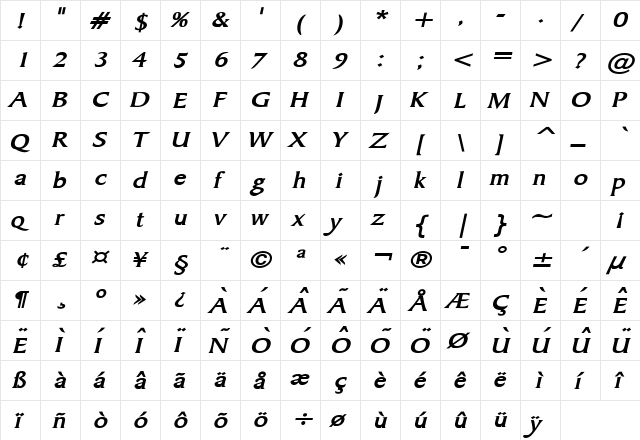
Barrett Wide Bold Italic
Design Context for Barrett Wide Typeface
Barrett Wide is a composed and adaptable typeface that performs quietly and consistently across a wide range of design contexts. The dynamic lean of this cut emphasises speed and emphasis in any layout. Its bold stroke weight gives it real presence on the page.
Pro Tip: Try Barrett Wide for annotation and caption copy alongside an upright companion — the contrast in angle creates a dynamic but ordered typographic system.